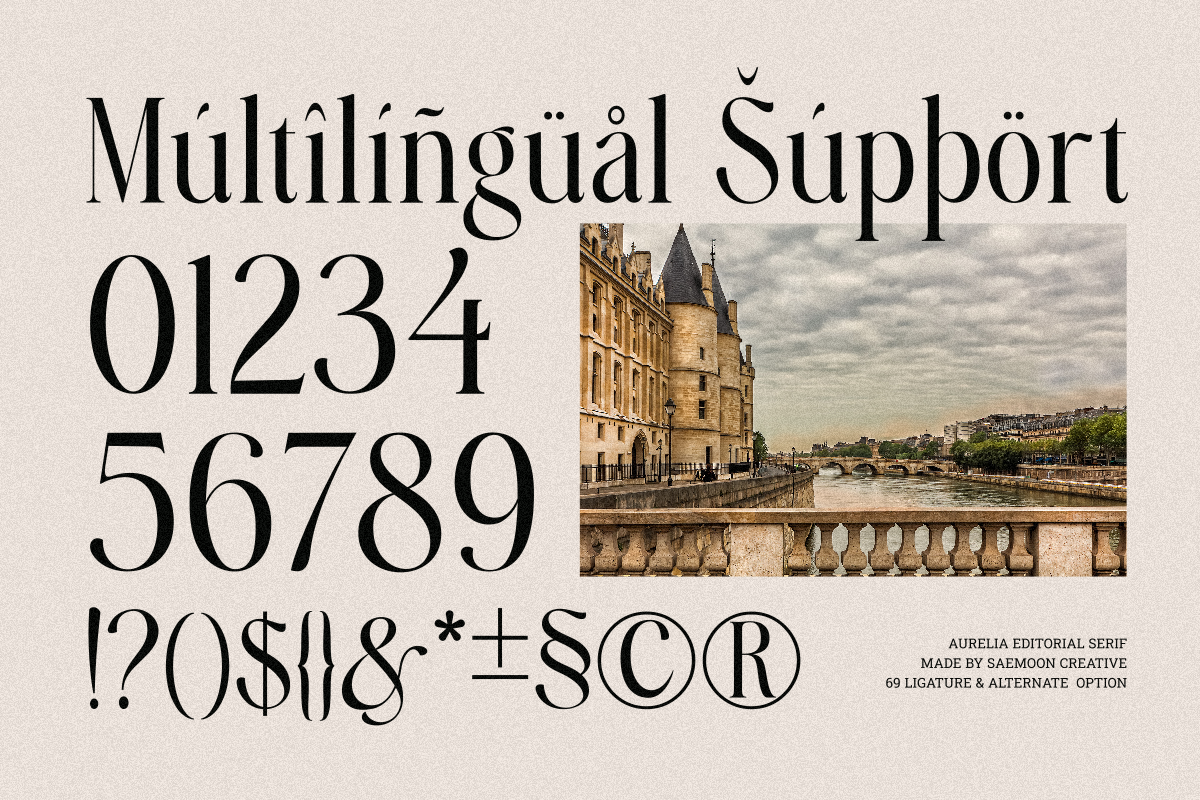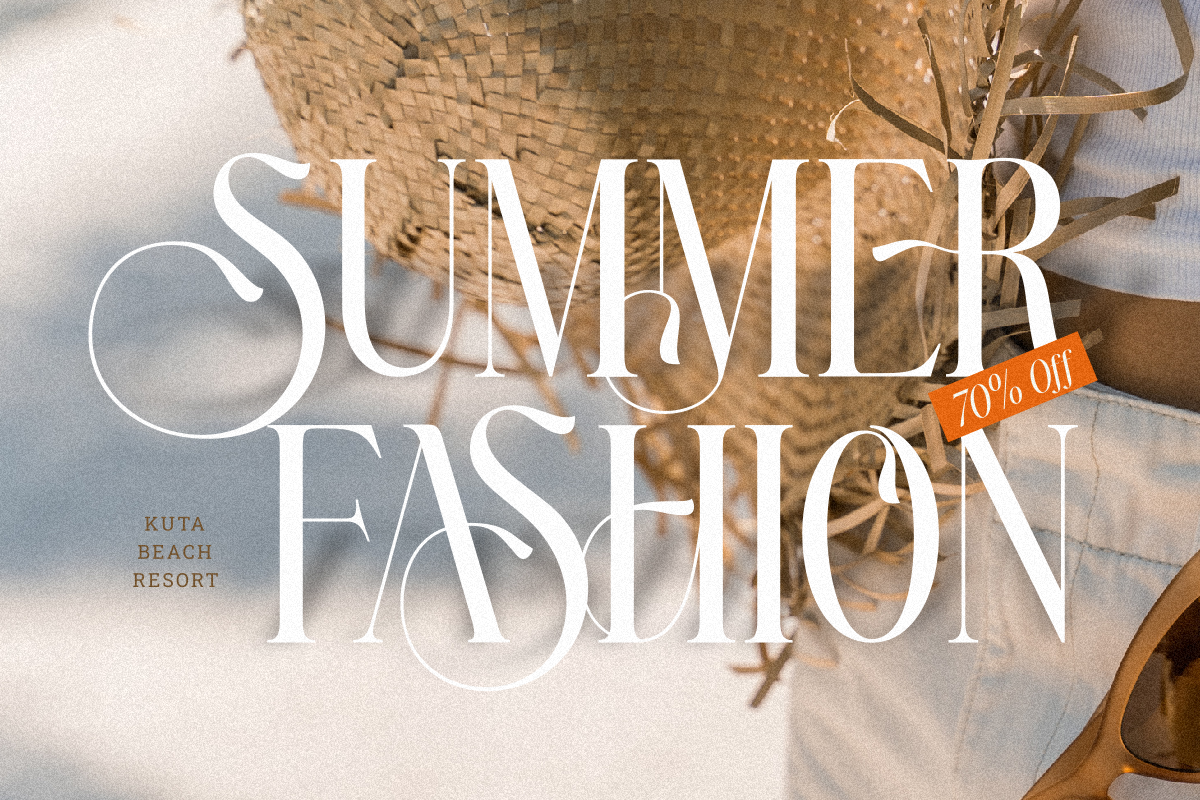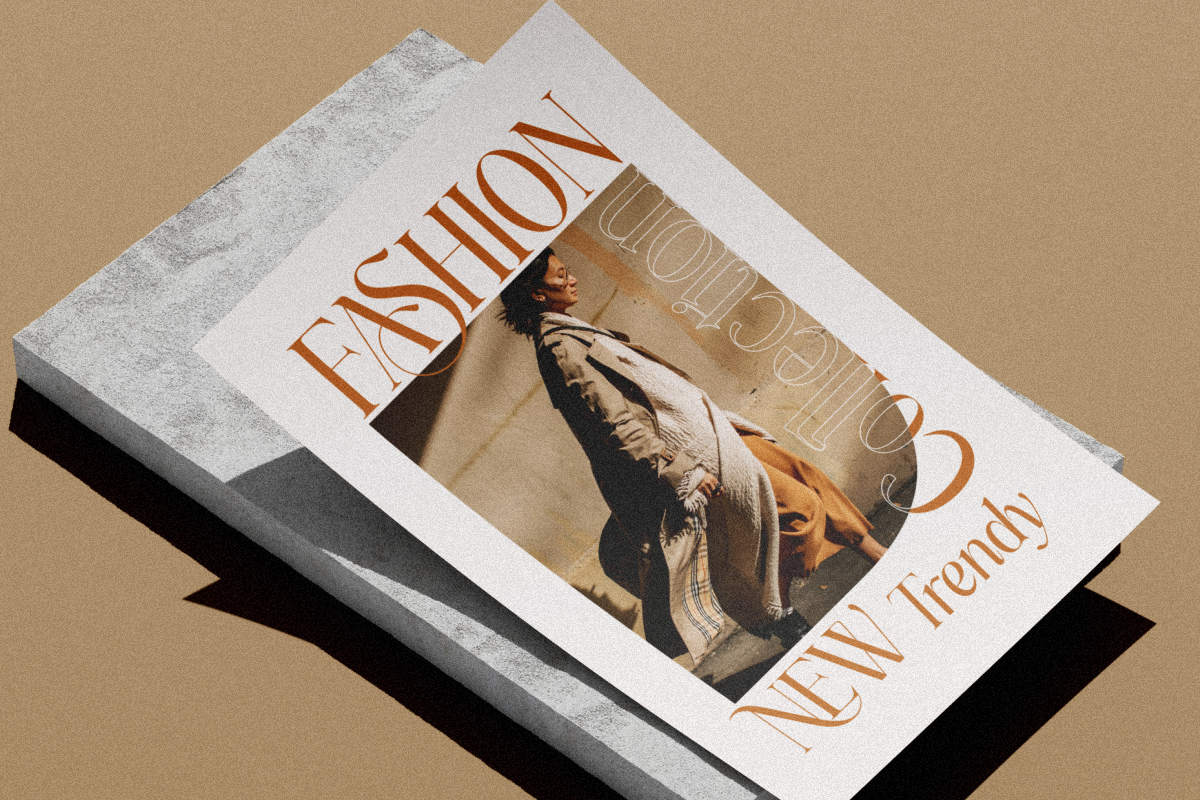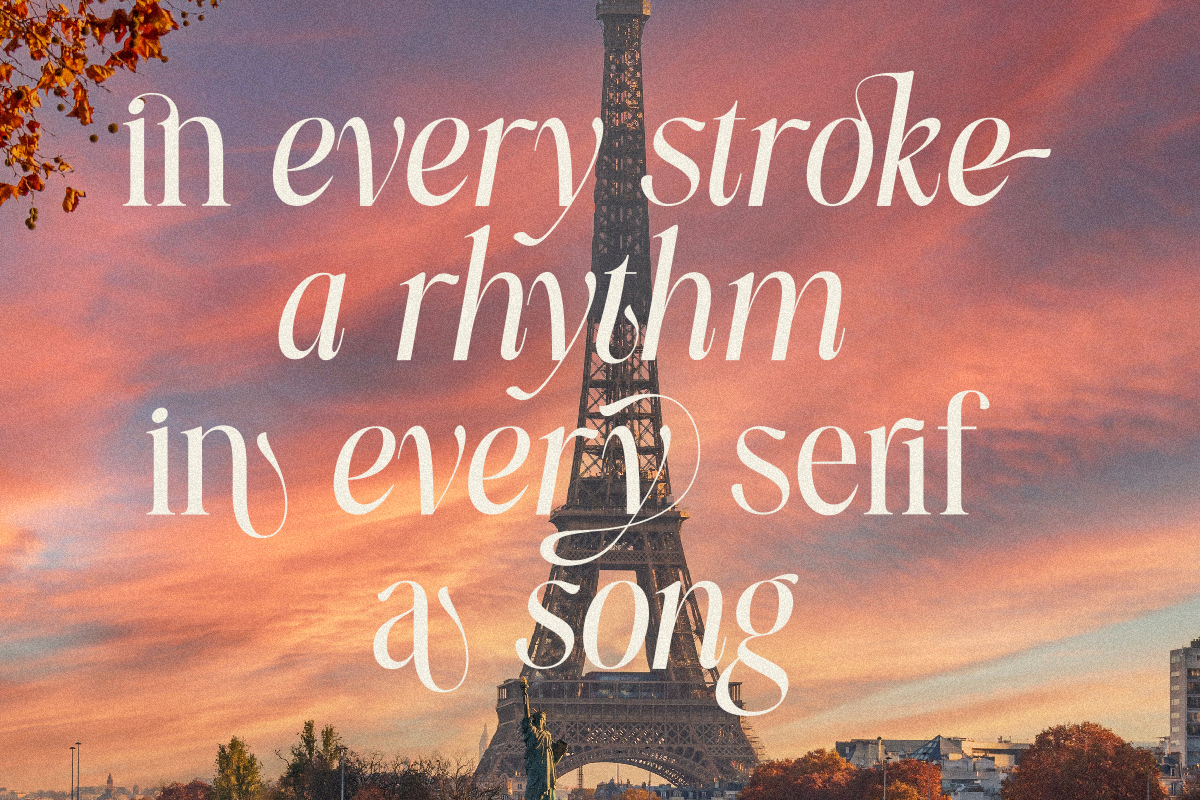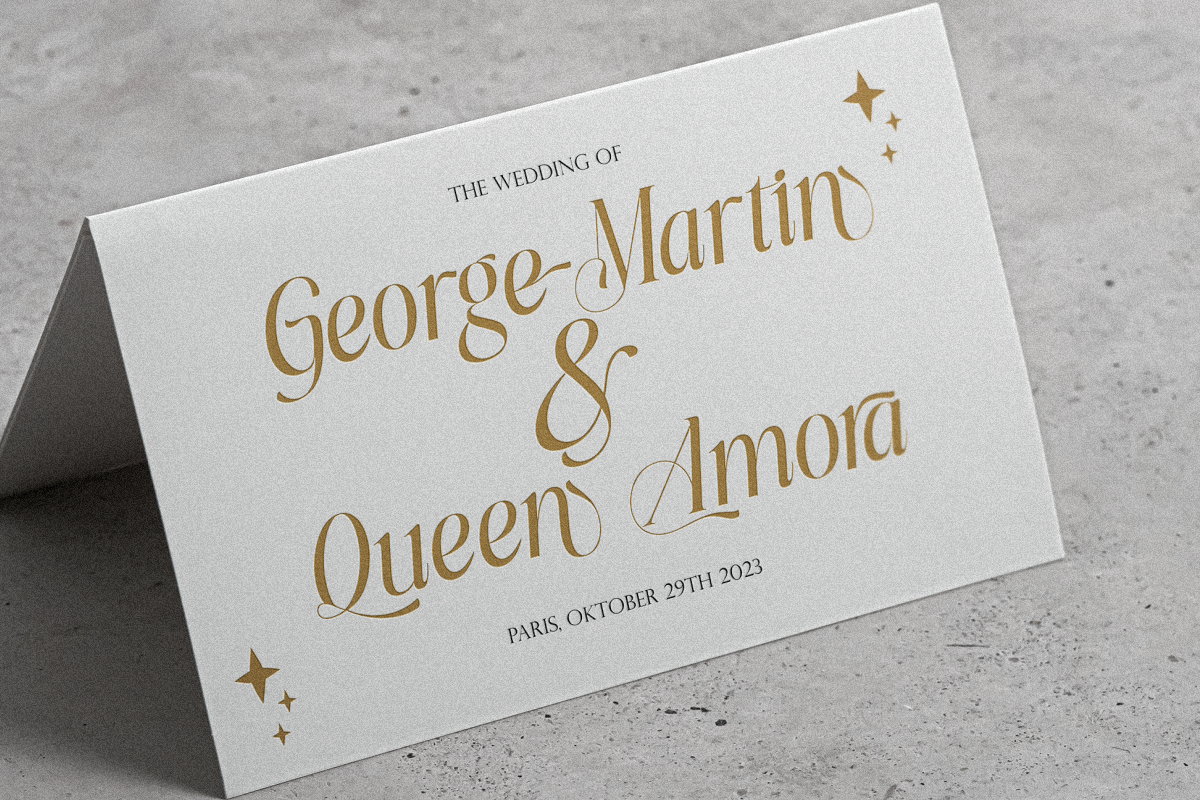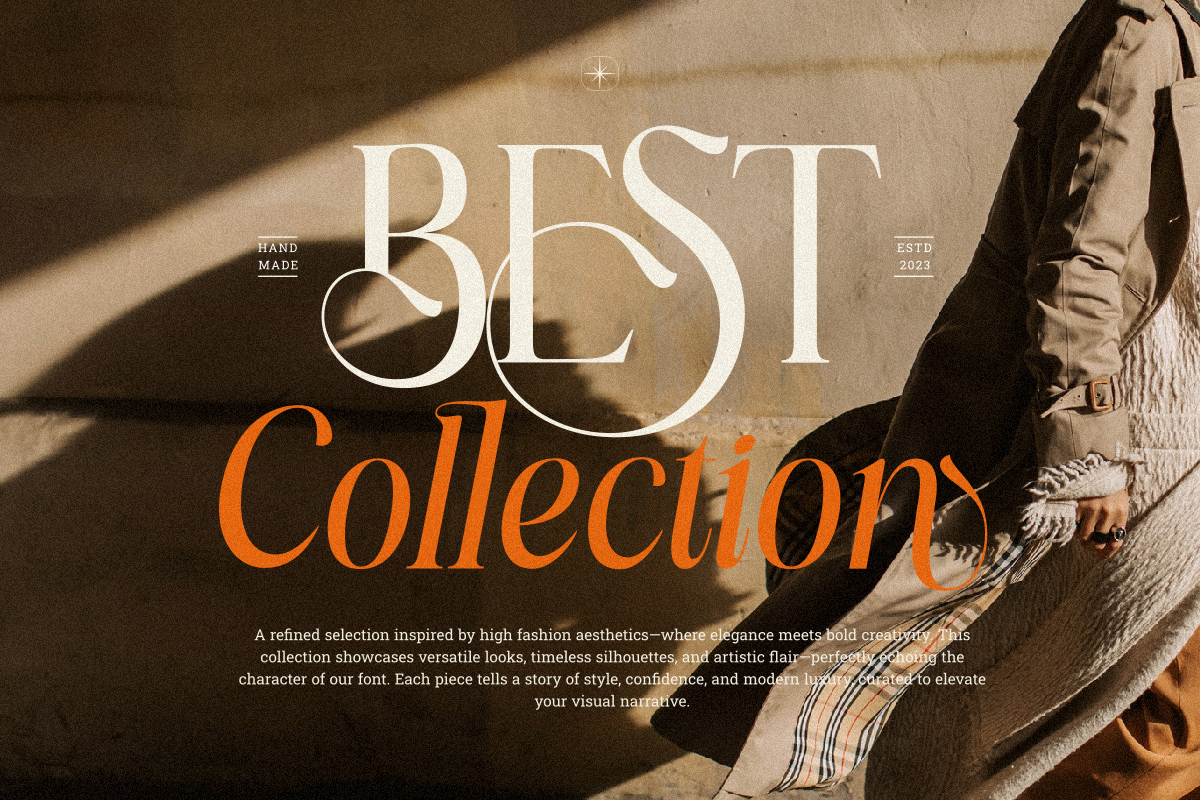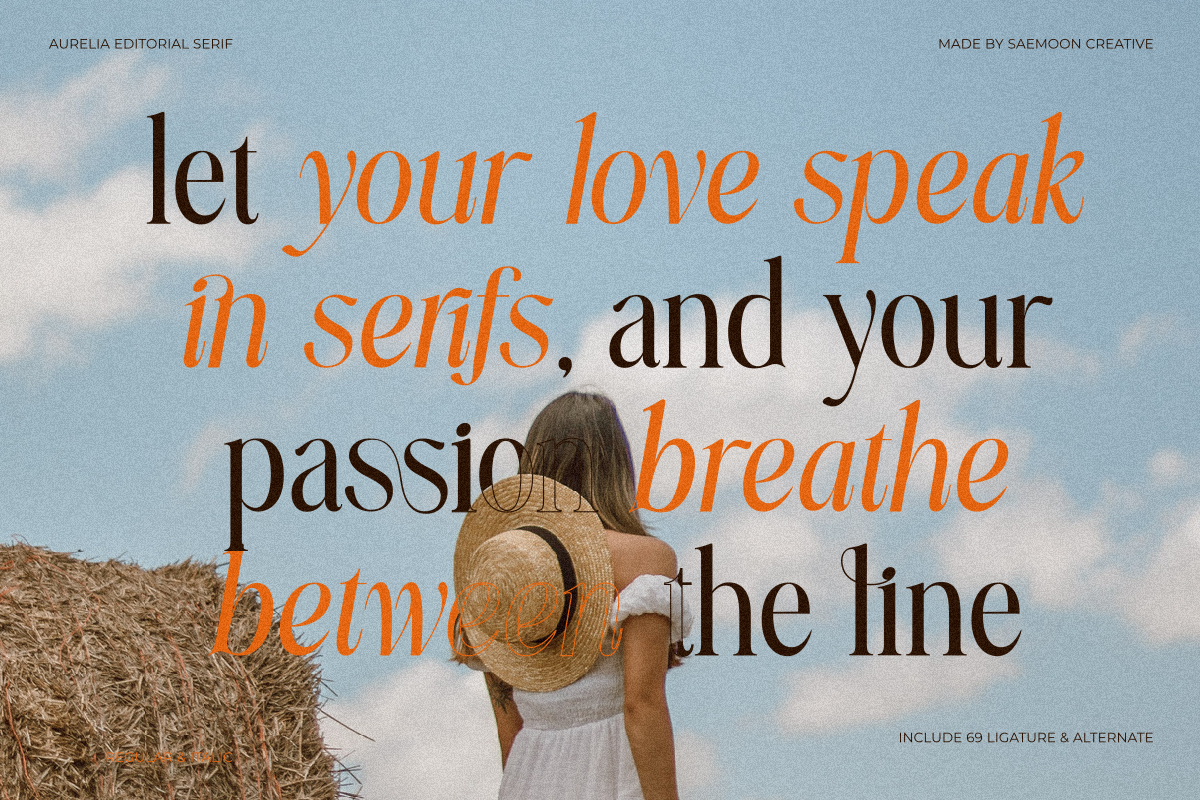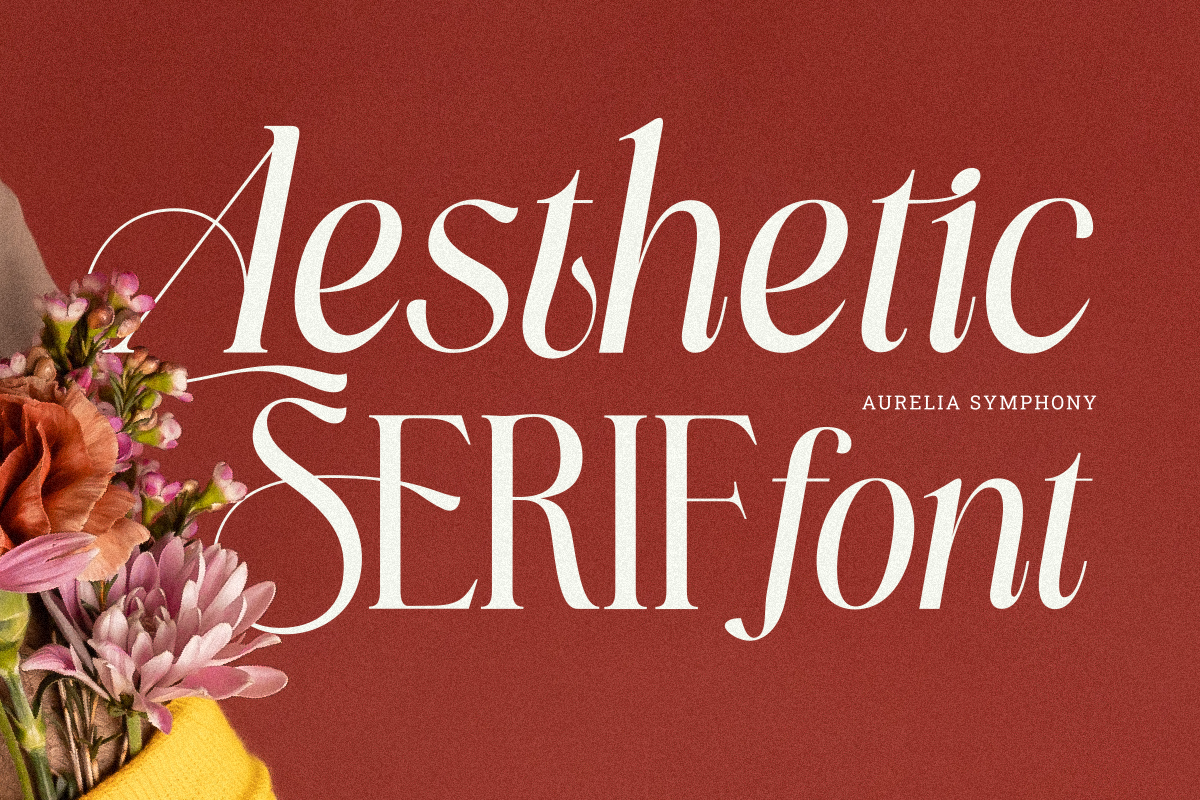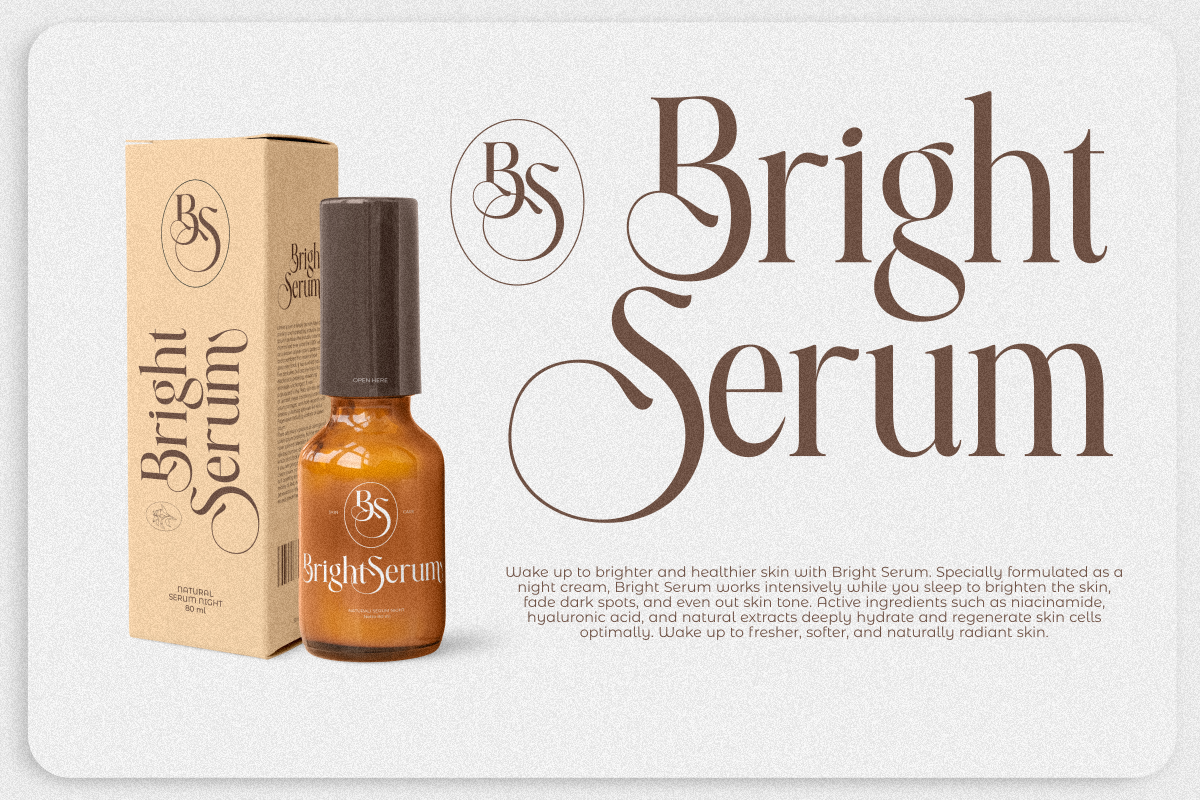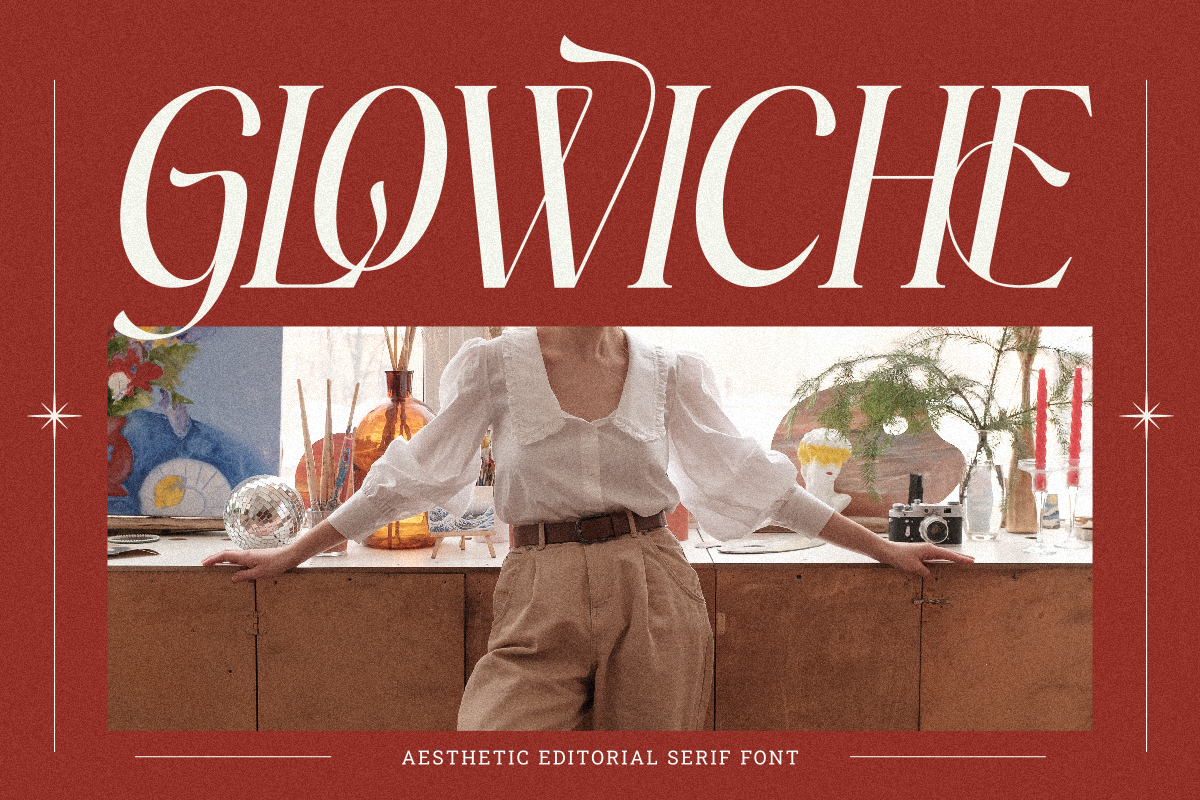
Aurelia Symphony
Aurelia Symphony – Elegant Editorial Serif Typeface Aurelia Symphony is a sophisticated high-contrast serif typeface designed to bring timeless elegance and a romantic editorial feel to your creative work. With beautifully crafted curves, sharp serifs, and a wide selection of ligatures and stylistic alternates, this font is perfect for branding, magazines, book covers, wedding designs, and luxury packaging.
Whether you’re working on high-end print layouts or digital campaigns, Aurelia Symphony offers both Regular and Italic styles to give your typography a refined and expressive touch.
Aurelia Symphony Regular
Aurelia Symphony Italic
Ligatures & Stylistic Alternates
Multilingual Support (Western European Languages)
Bring classic elegance to your next project with Aurelia Symphony – a serif font with soul.